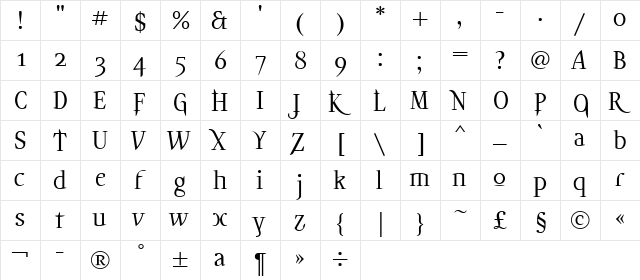
Artemius Gordon TT Regular
Design Context for Artemius Gordon TT Typeface
Artemius Gordon TT takes a measured approach to typography — its balanced proportions and neutral character make it a reliable workhorse for both digital and print work.